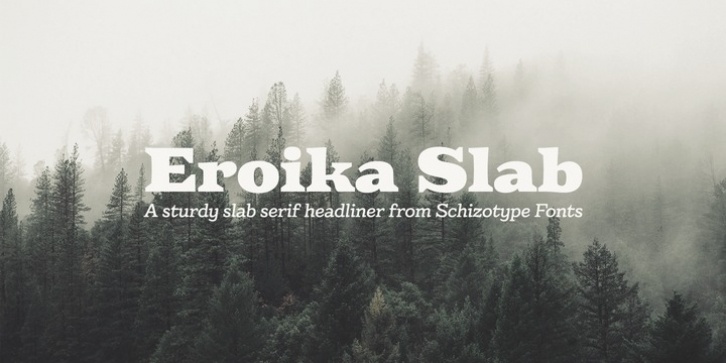
Eroika Slab was designed by Dave Rowland and published by Schizotype. Eroika Slab contains 10 styles and family package options.
Eroika Slab is a robust, display serif, intended to be set large. While for most serifs, display means high contrast, Eroika's 'displayness' stems from its wide stance, tight spacing, equal cap and ascender heights, flared stems and large x-height.
The italics in particular are quite unorthodox, with their vertical serif cut-offs and foot serifs where most fear to tread ('scuse the pun). All fonts feature a useful array of stylistic sets, oldstyle figures, automatic fractions and case sensitive forms. All ligatures are in the discretionary section, as it's my belief that this typeface looks better without them, but I like to offer the choice.
Perfect for book covers, craft beer logos, boxing paraphernalia and tattoo magazine pull quotes. And probably a whole lot more besides!